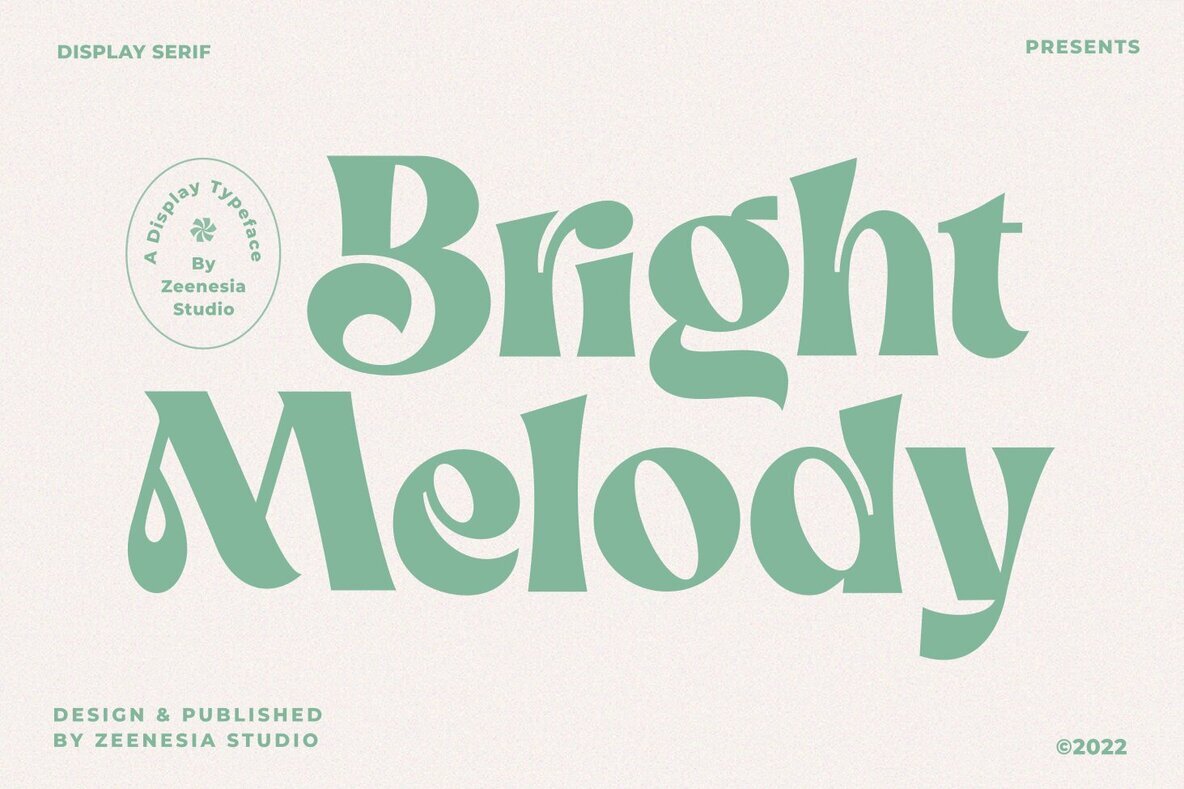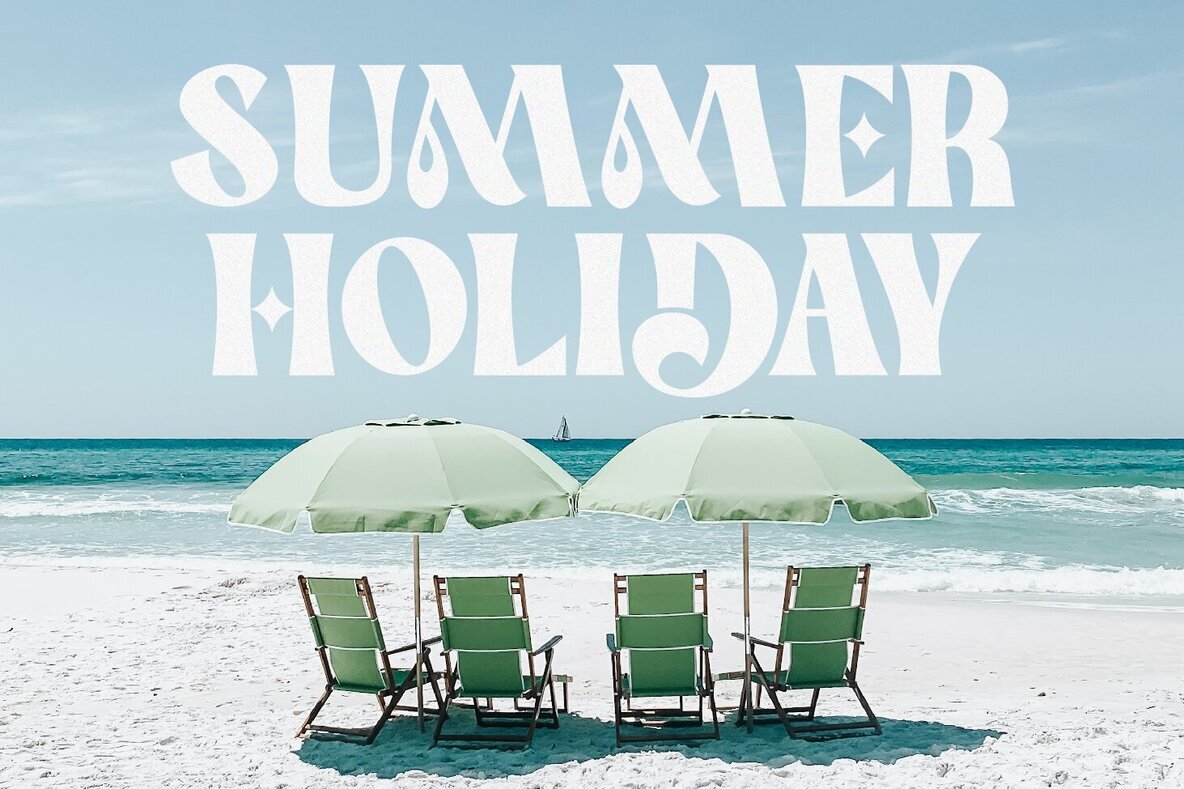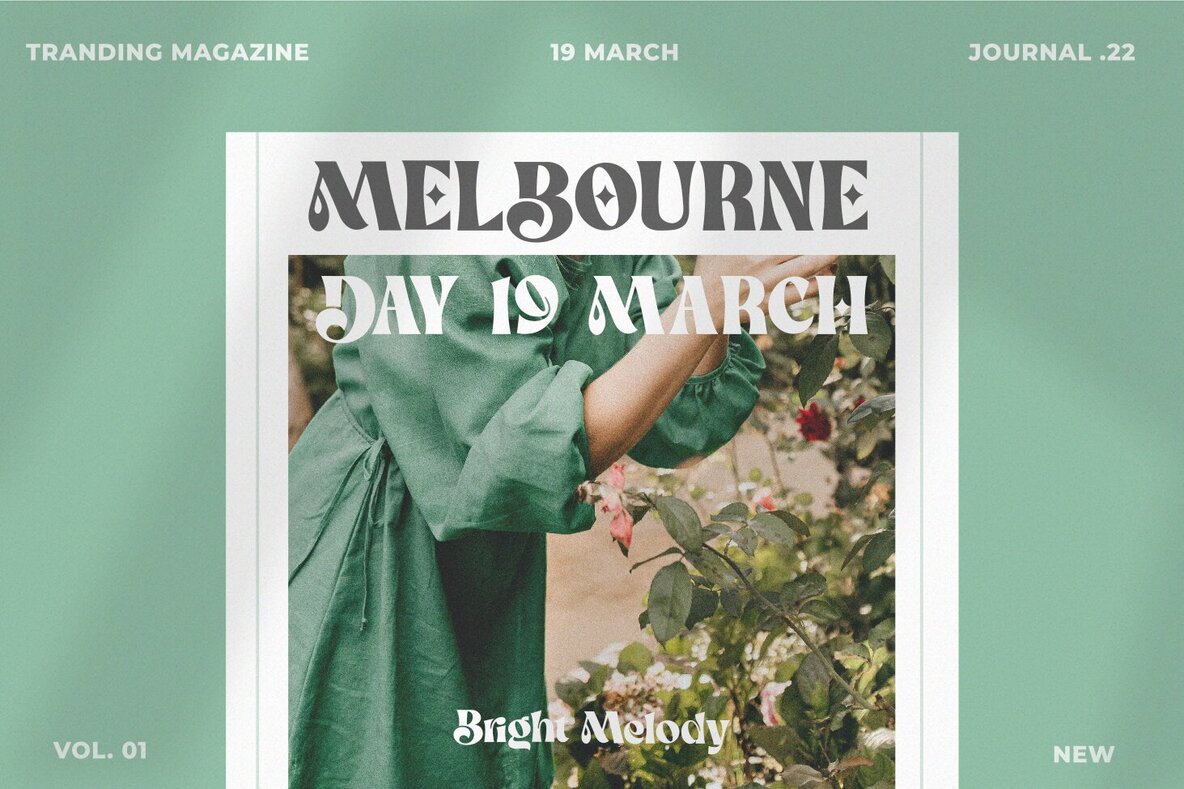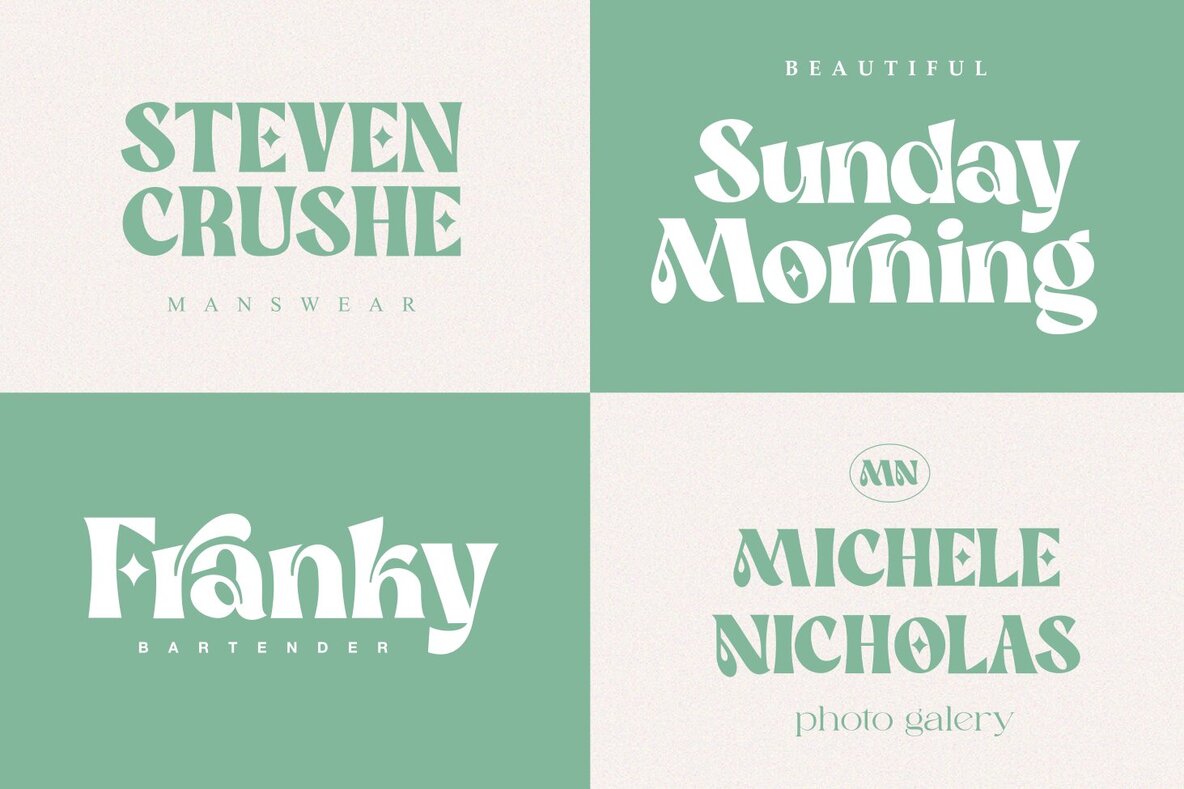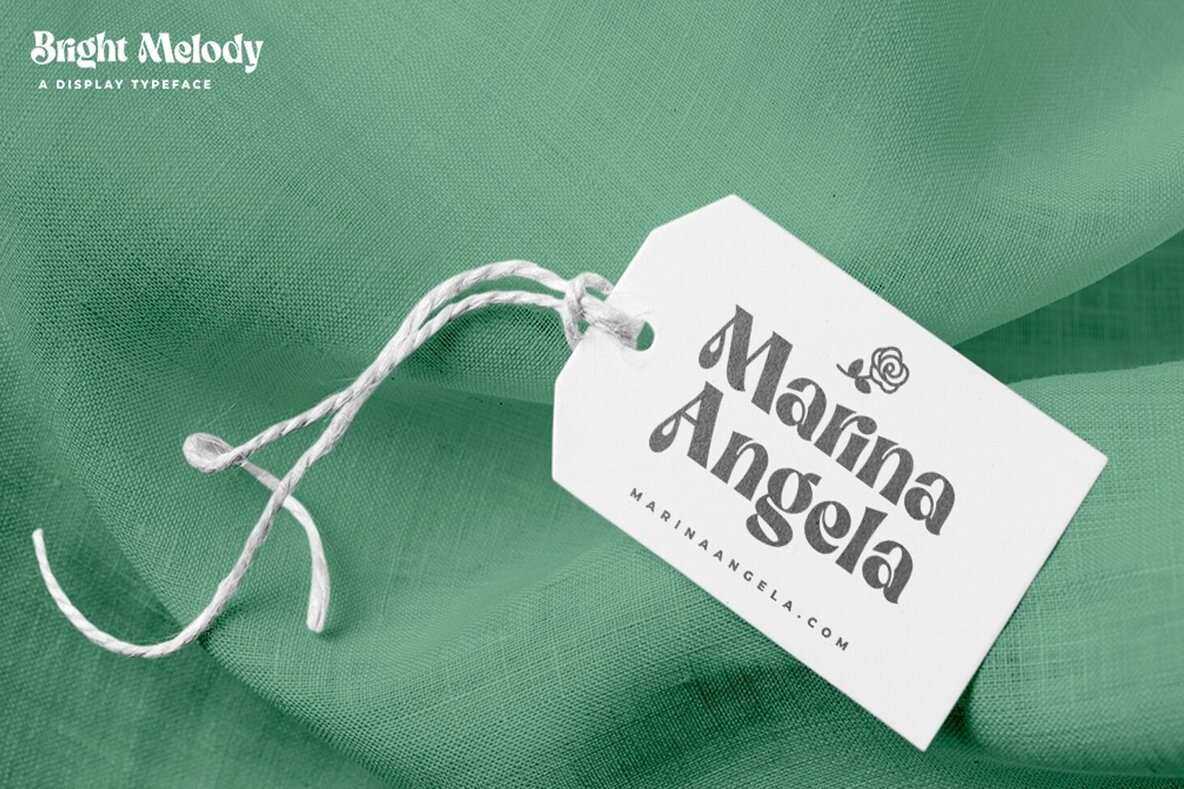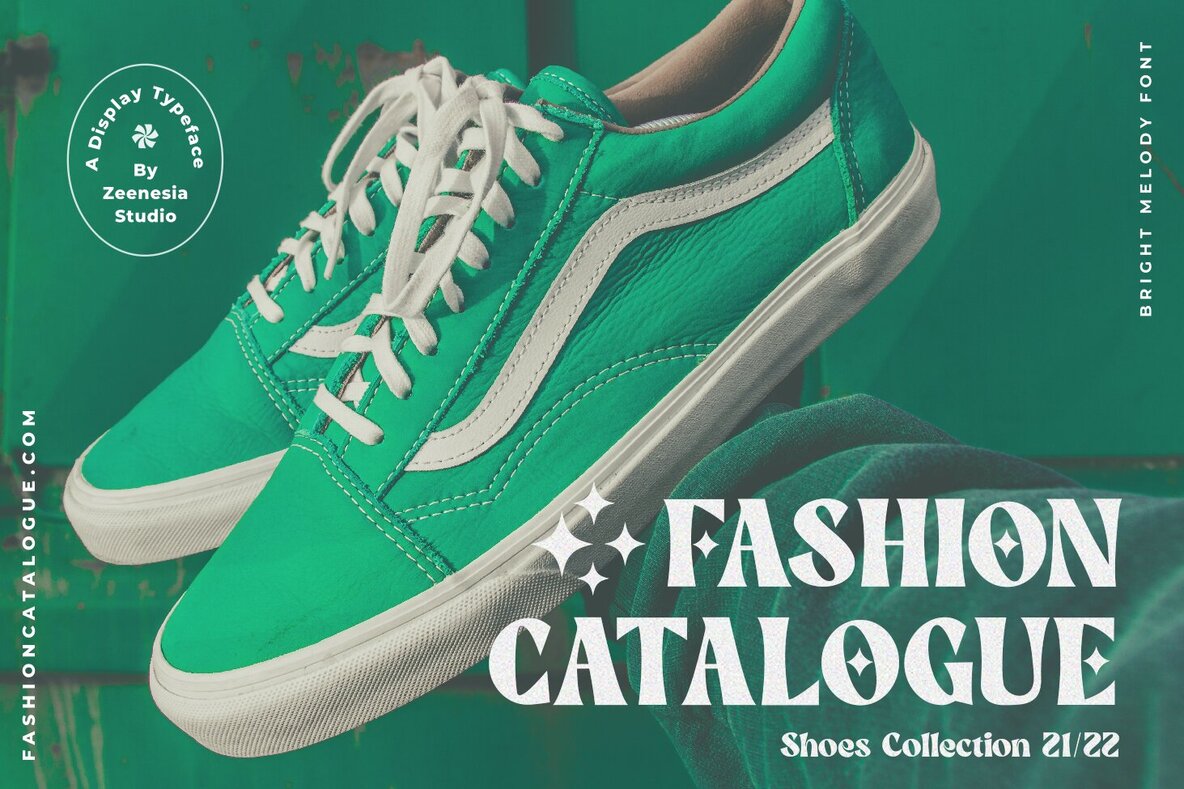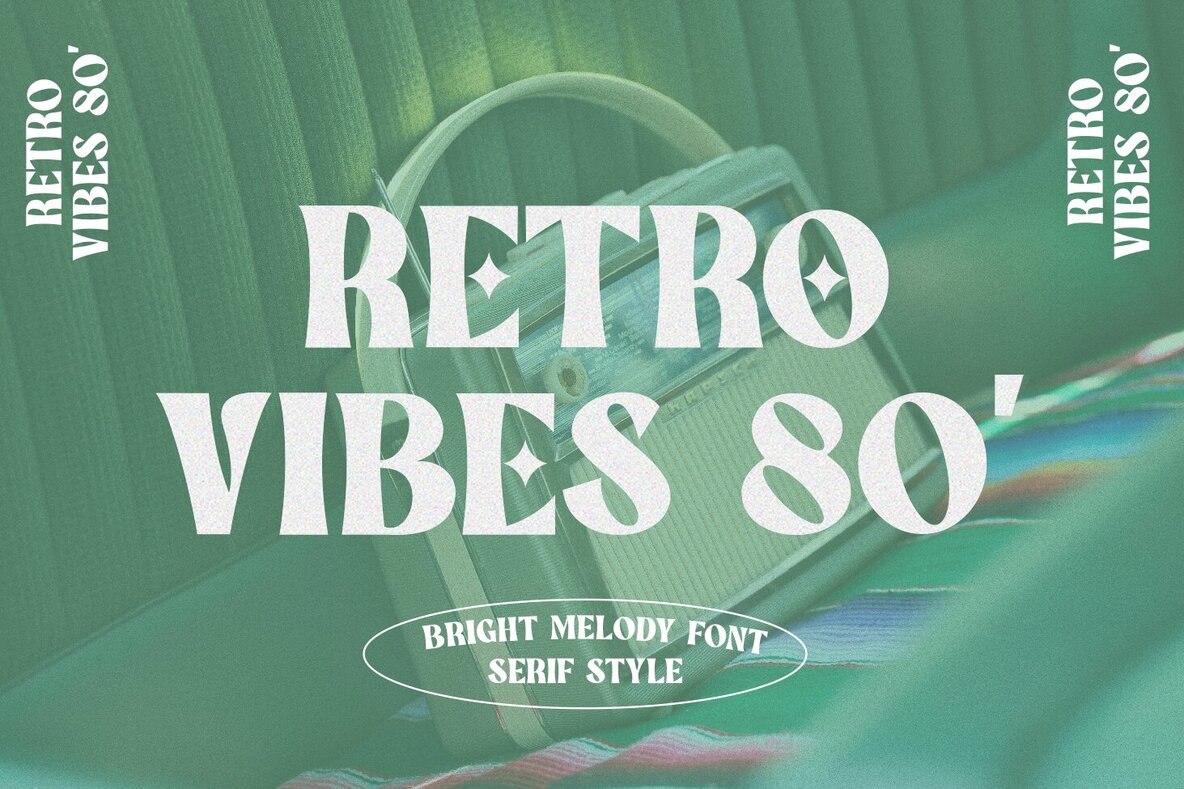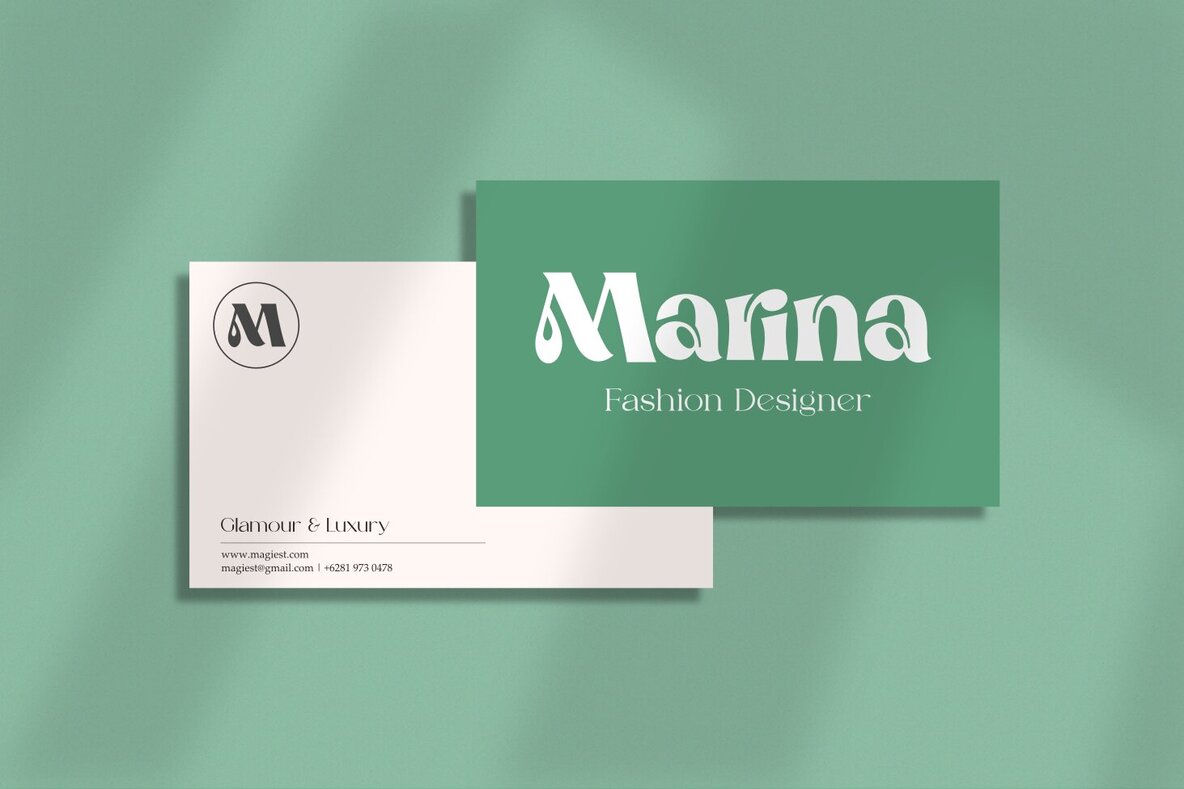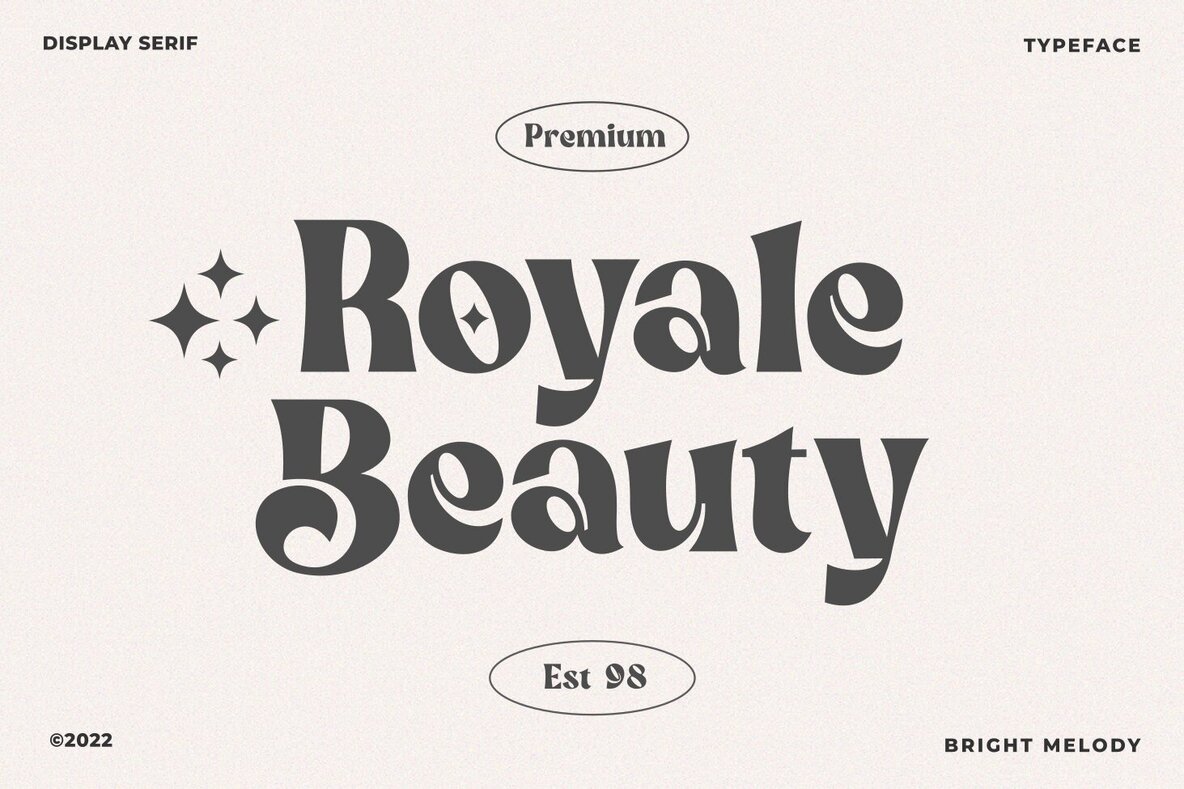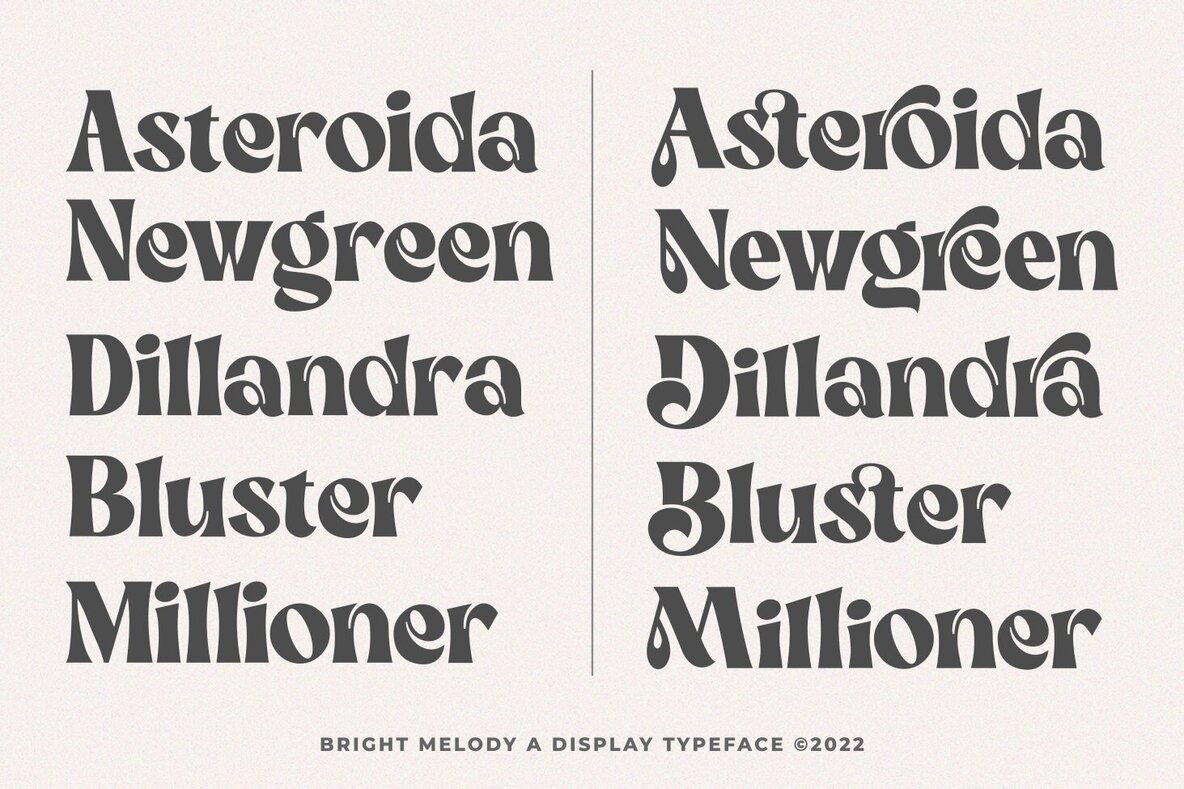
Bright Melody Font
Bright Melody Regular
Introducing "Bright Melody": A Vintage-style Display Font for Graphic Designers and Marketing Firms by Zeenesia Studio Tailored and meticulous, "Bright Melody" adds a touch of nostalgic charm to your marketing toolkit. This vintage-styled display font, crafted by the visionary Zeenesia Studio, embodies an artistic fusion of bold strength and soft subtlety. With each typographic keystroke, Bright Melody captures the dichotomous nature of classic and contemporary design, rendering it an ideal addition to any creative project. Harmony and clarity go hand in hand with Bright Melody, ensuring mesmerizing readability no matter the scale. Designed with digitized precision, the font commands attention at large sizes, making it a remarkable choice for logo design and editorial projects. One can't help but appreciate its flexibility as a web font, adding depth and personality to the virtual canvas. Its unique character pairs well with a myriad of industries, seamlessly adapting to clothing branding and product packaging requirements. Its presence is an enchanting symphony on a magazine headline, capturing the reader's attention at the very first glance. With Bright Melody in your design repertoire, your marketing messages become an elegantly crafted ode to your brand. Its archetypal style and modern sophistication make this vintage display font a must-have resource for industry-leading graphic designers and marketing firms. Key Features: